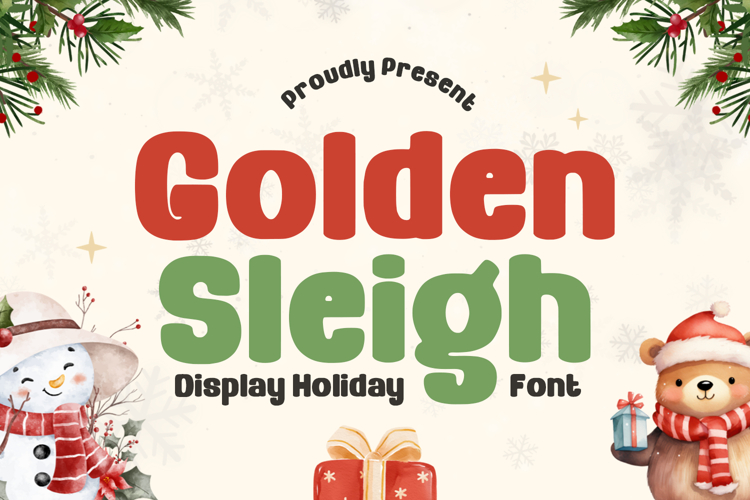
Golden Sleigh - Christmas Font
Golden Sleigh is a refined and elegant font that captures the magical spirit of the holiday season with a luxurious touch. Inspired by festive traditions and classic charm, this font combines graceful letterforms with a warm, timeless feel that elevates any design it touches.
Perfectly suited for Christmas and winter themes, Golden Sleigh also shines in projects for Thanksgiving, weddings, invitations, birthdays, Easter, and seasonal celebrations throughout the year. Its elegant style brings a sense of sophistication, making it ideal for both festive and formal designs.
Golden Sleigh features beautifully crafted characters that flow harmoniously, creating a balanced and visually pleasing typography experience. The elegant details add character and depth, allowing designers to create standout headlines, decorative text, and memorable branding elements.
This font is highly versatile and works wonderfully for Cricut projects, embroidery, crafts, lettering, and SVG designs. Whether used for greeting cards, packaging, home décor, or handmade products, Golden Sleigh delivers a polished and professional look.